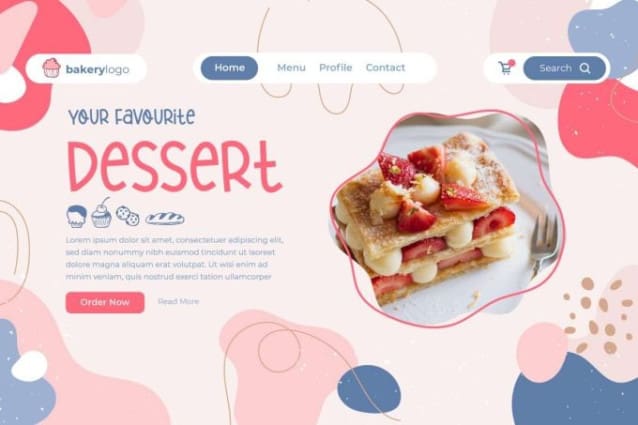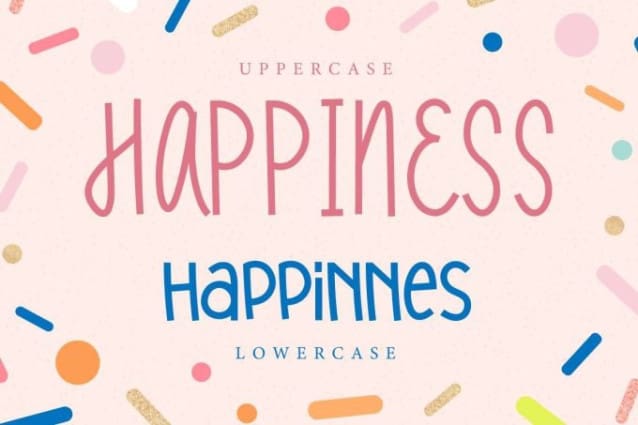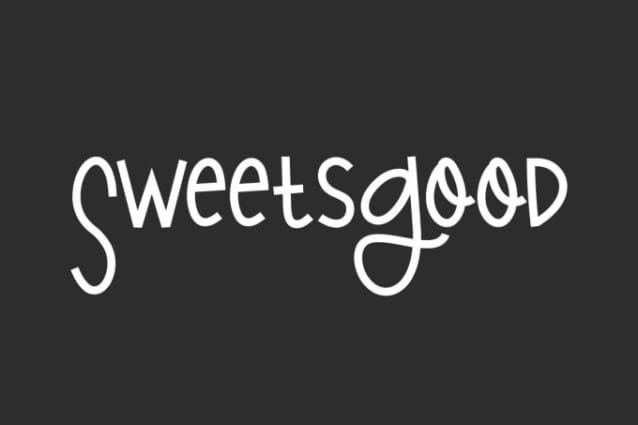
Sweets Good Font
Sweets Good Font is a cute and stylish display font with unique lower and upper case shapes letters. This type font will make your designs looks adorable! This font will be suitable for many industries, such as advertisement, author and writer, bakery and pastry, beauty product, cafe, florist, handicrafts, homeware, printing, publishing, and more!
Sweets Good Font includes full set of Uppercase and Lowercase Basic Characters, Numerals, Punctuation, and Symbol. This lovable font will make you want to use it in various types of designs, such as brand image, brochure, business card, cover, custom design, greeting card, invitation, label, poster, product packaging, quote, screen printing, signage, website, etc.